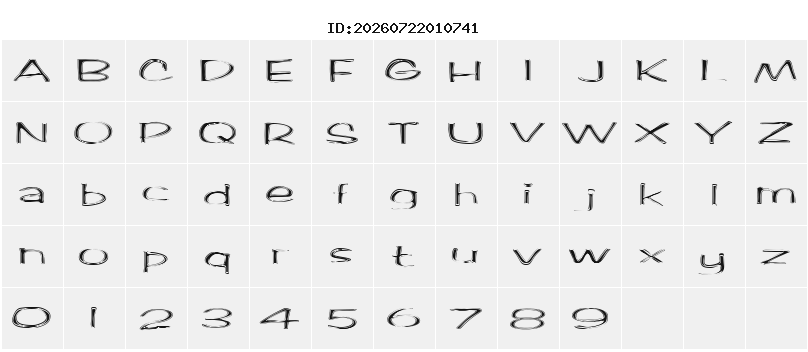
• Font Name: FZ HAND 2 CONTOUR EX
FZ HAND 2 CONTOUR EX.ttf is a modern, elegant sans-serif font designed for ultimate readability and visual harmony. Perfect for branding, headlines, web design, and print materials.